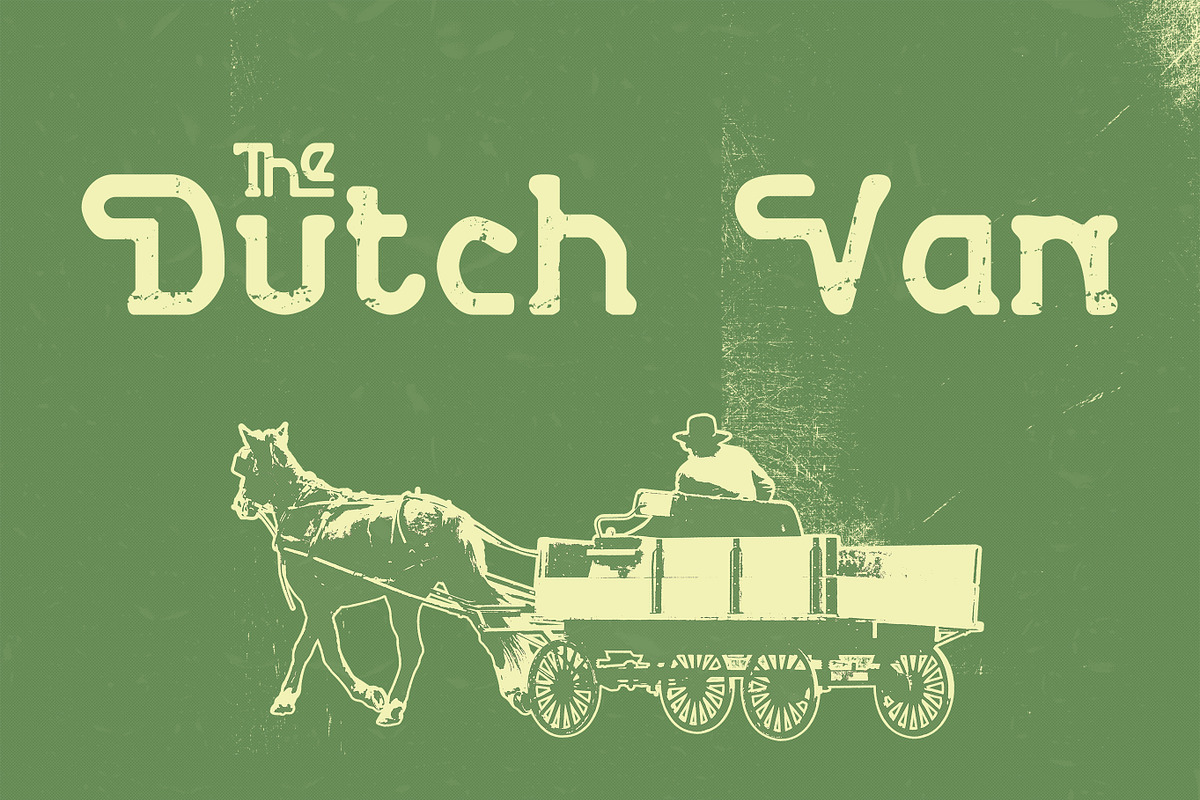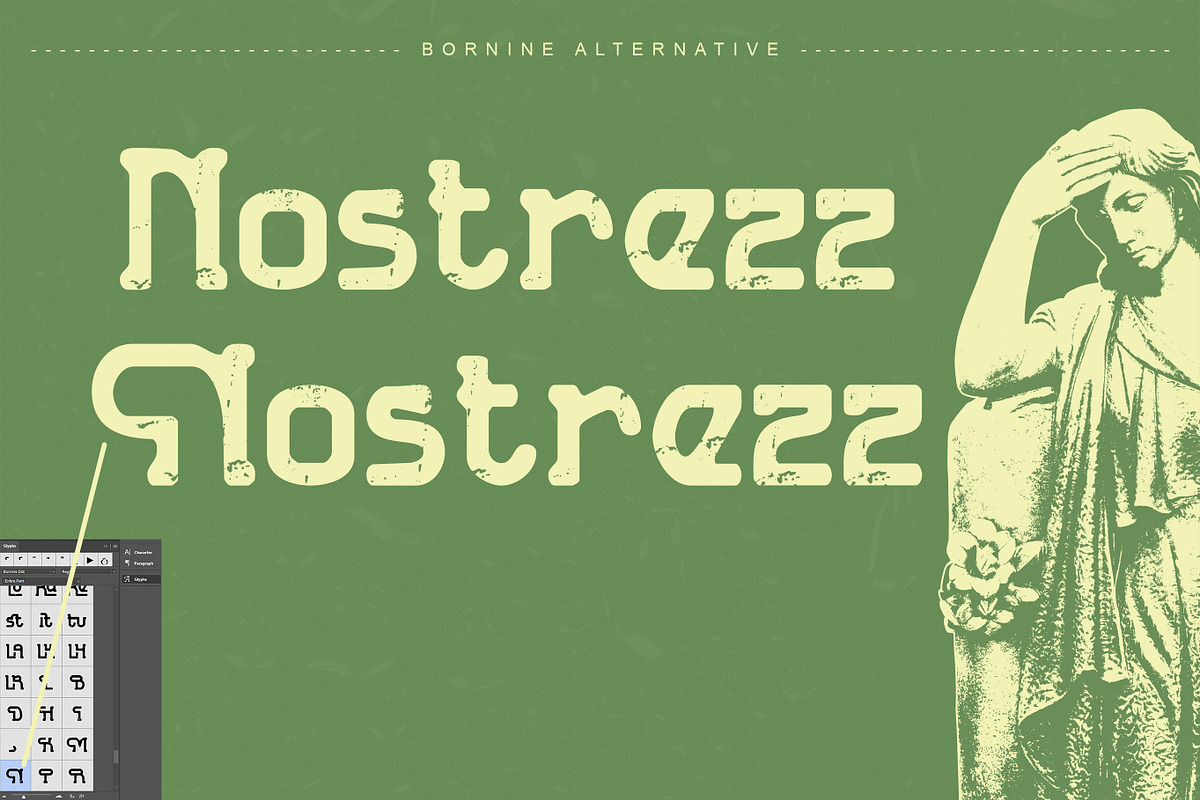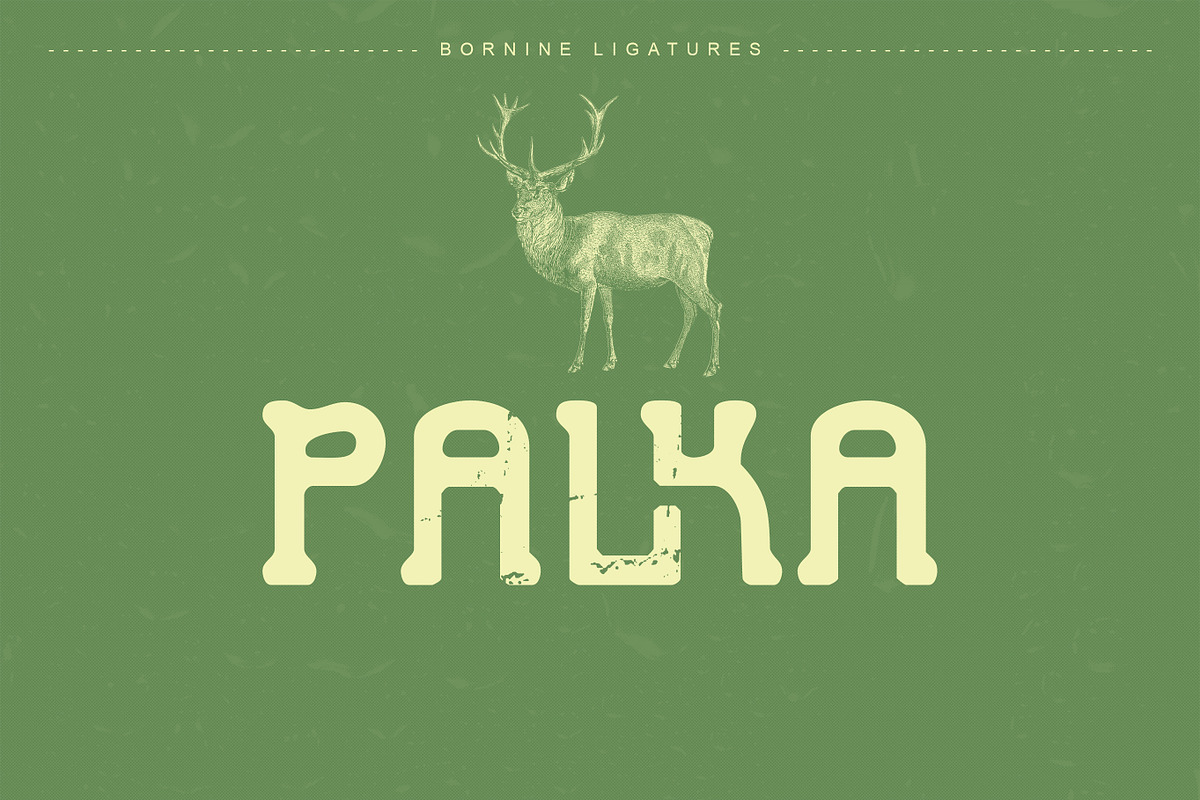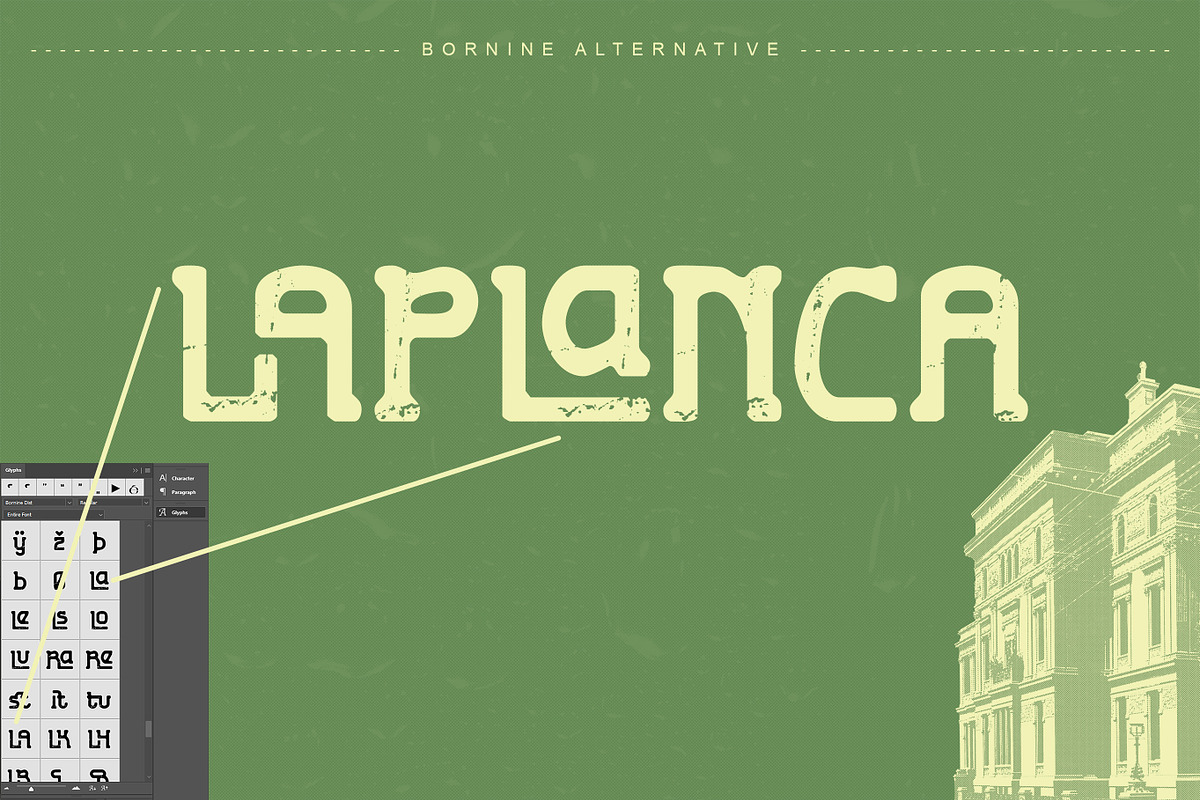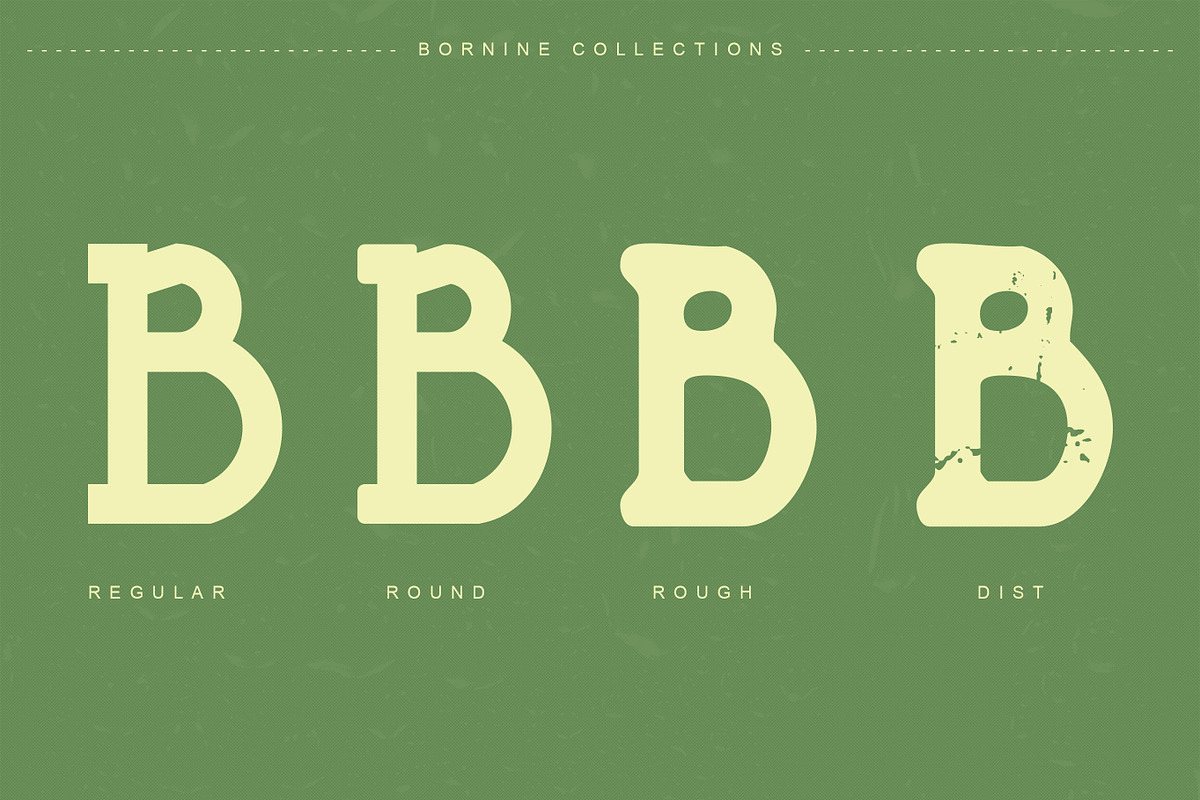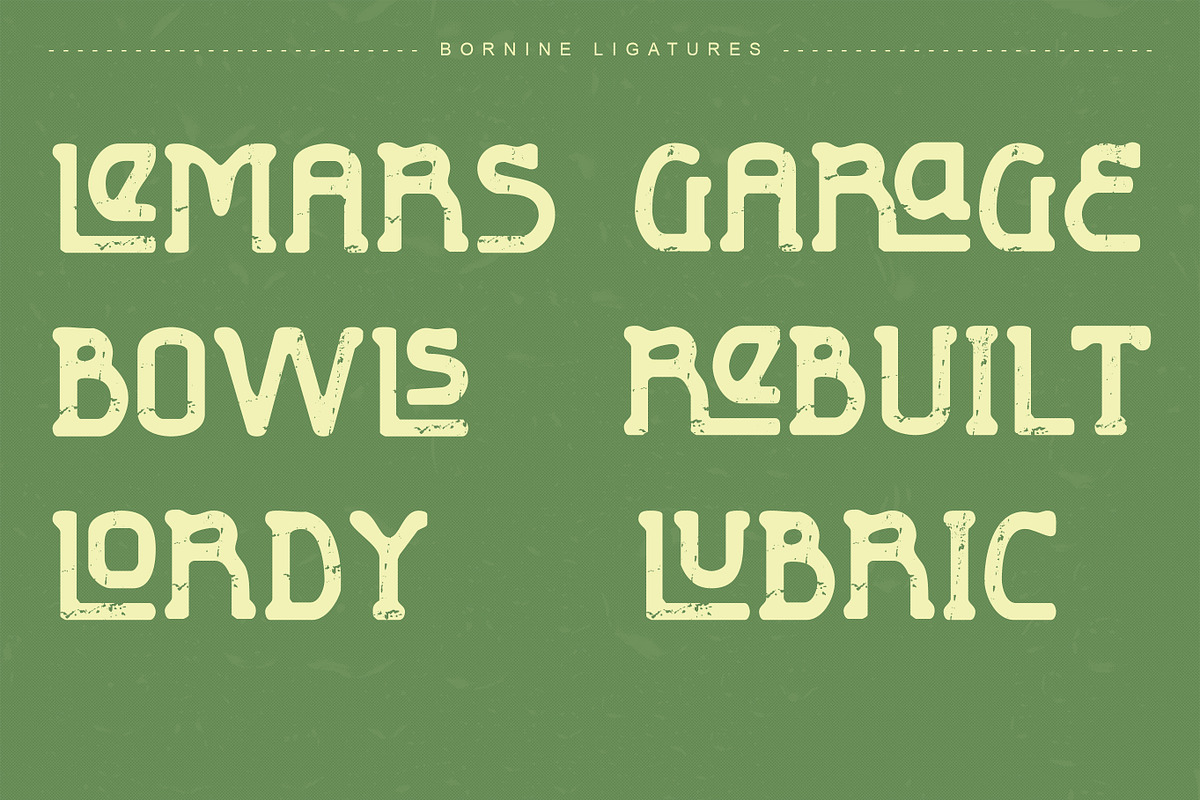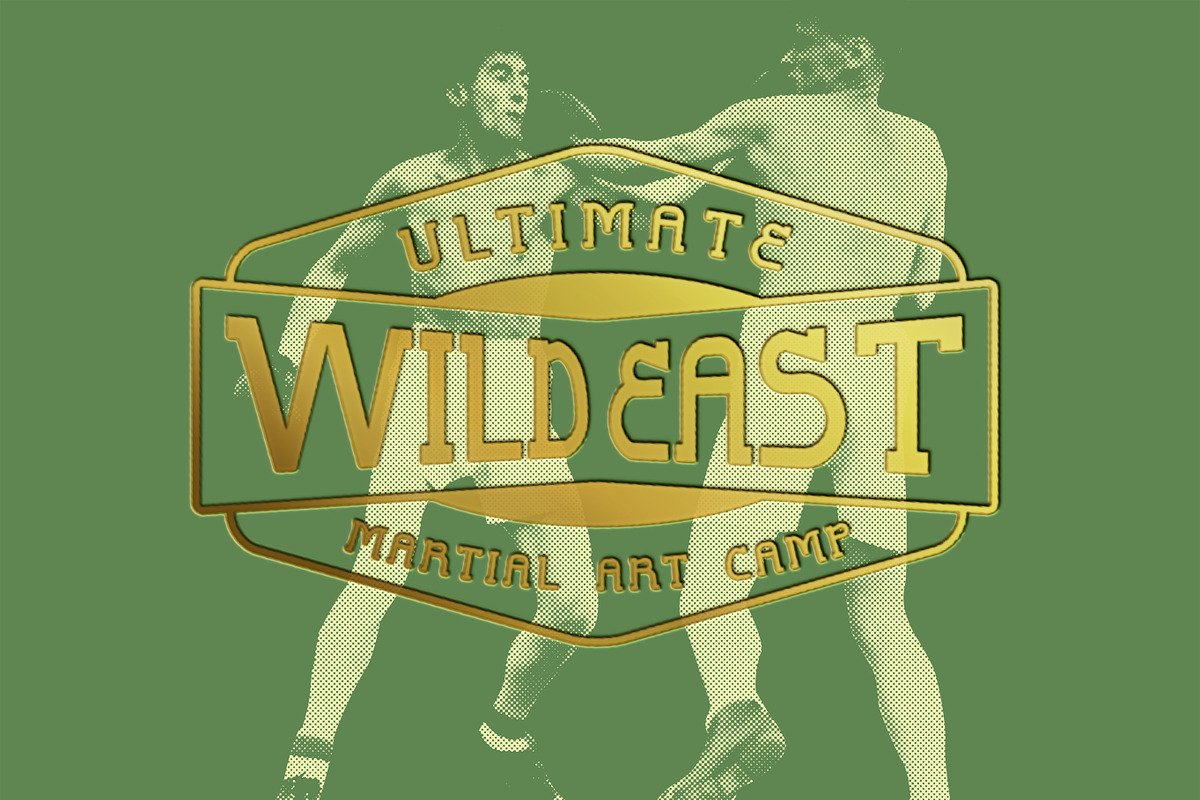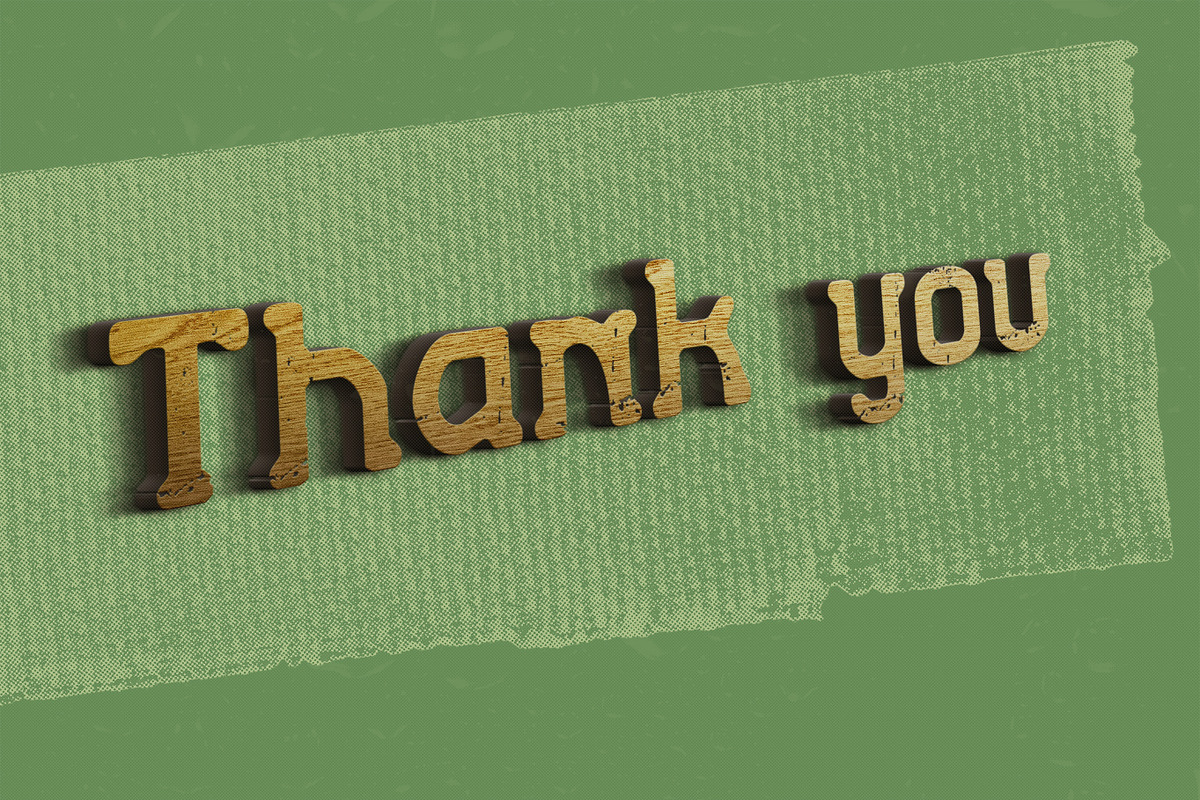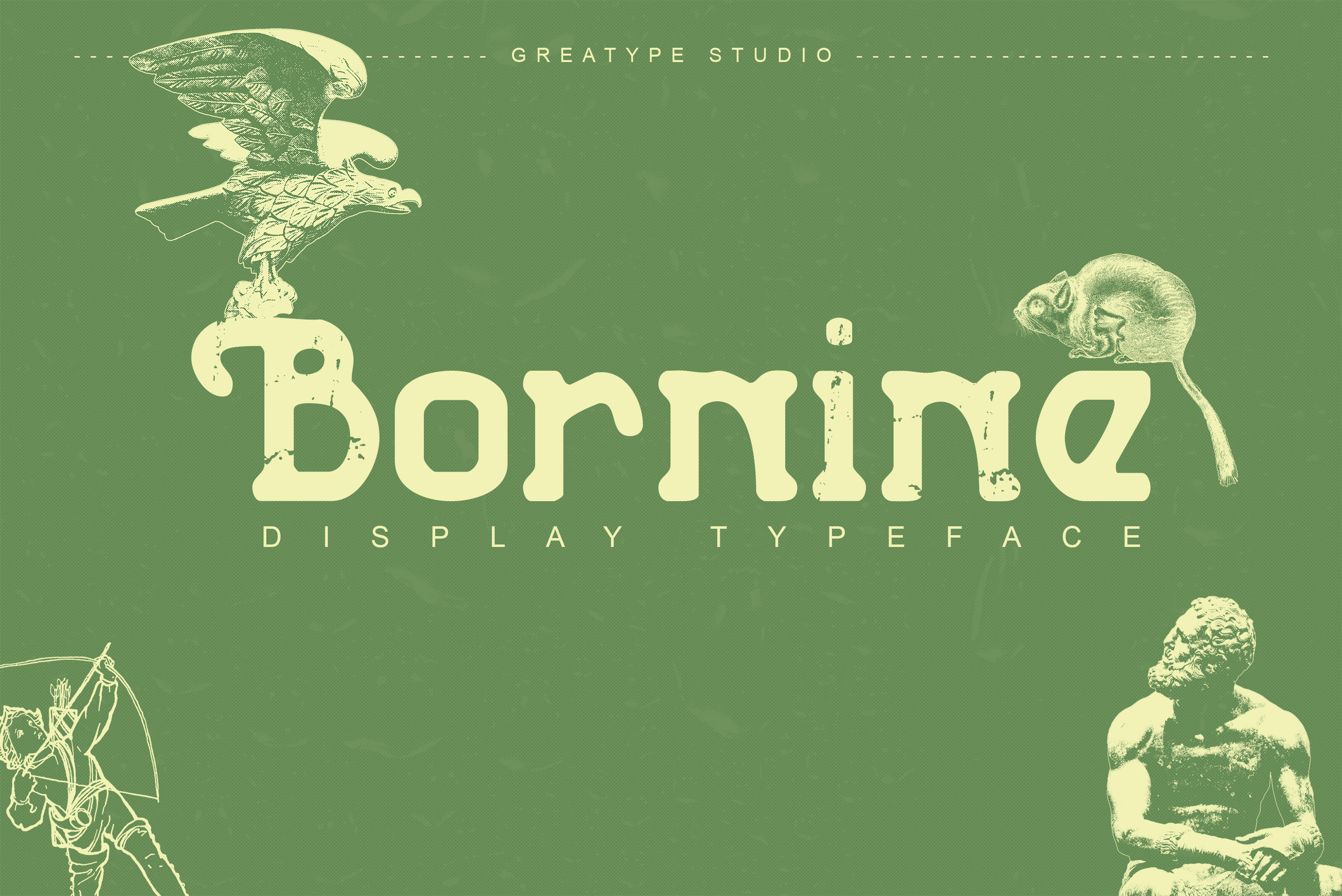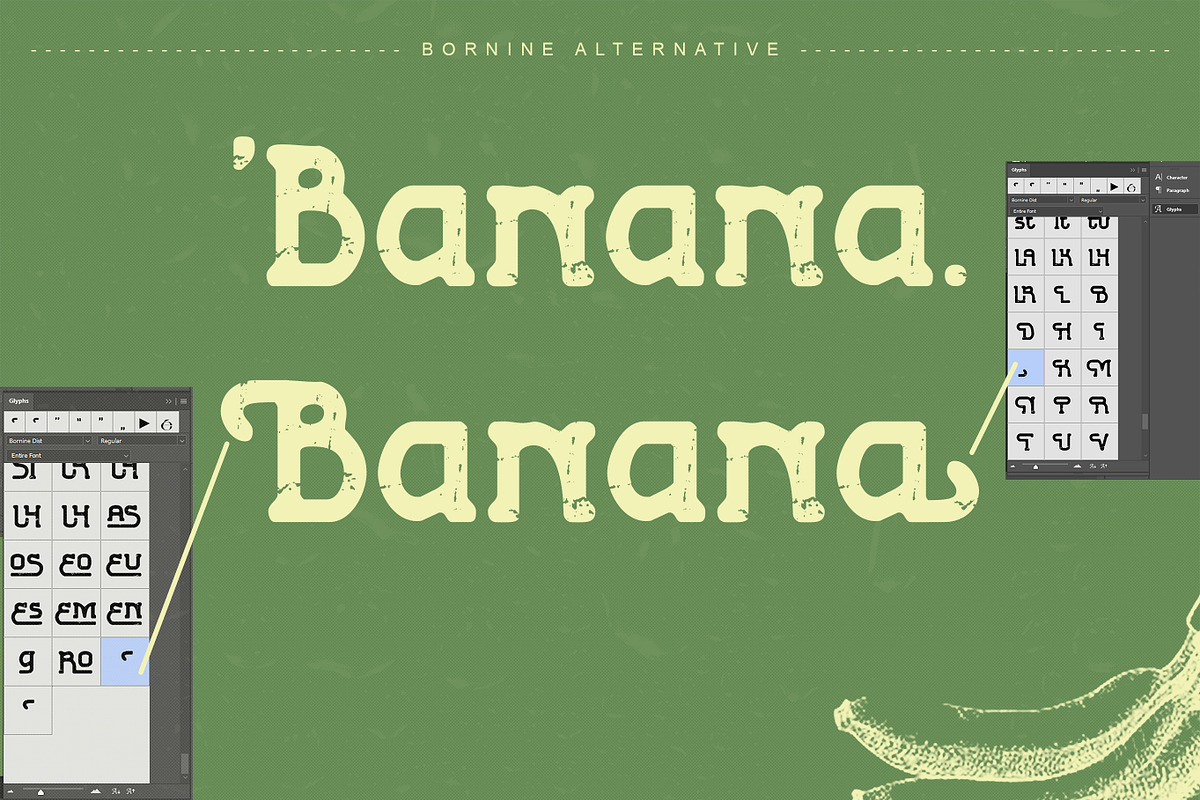
Bornine display typeface family
BORNINE is a unique and elegant typeface inspired by the world of classic motorcycles and the authentic custom culture. This font blends bold lines with smooth curves, creating a striking yet refined impression—embodying the spirit of riders who embrace freedom and a lifestyle full of character.
Designed to evoke a retro-modern feel, BORNINE is perfect for use in various visual contexts such as motor club logos, merchandise branding, folk & rock music titles, and banners or store names that demand a strong identity.
With its distinctive visual appeal and classic yet elegant touch, BORNINE does more than convey a message—it creates an atmosphere. Ideal for communities seeking a professional yet bold, masculine look.